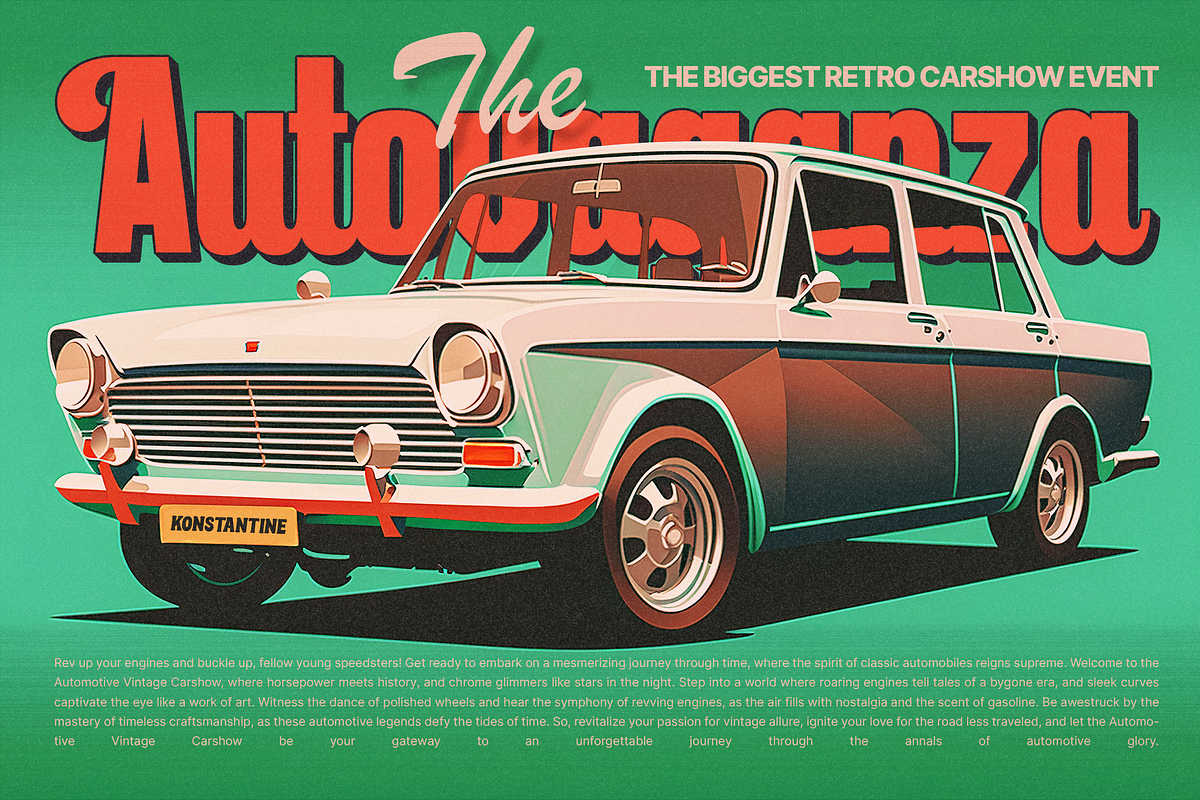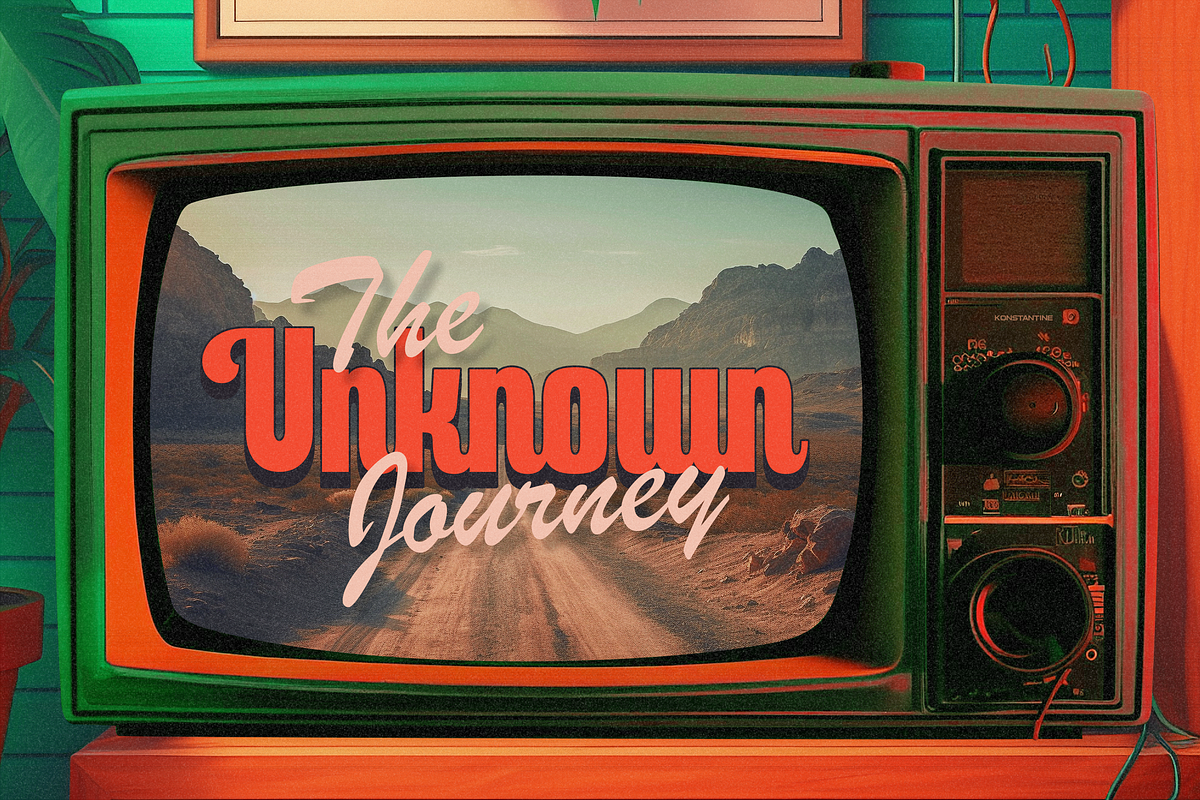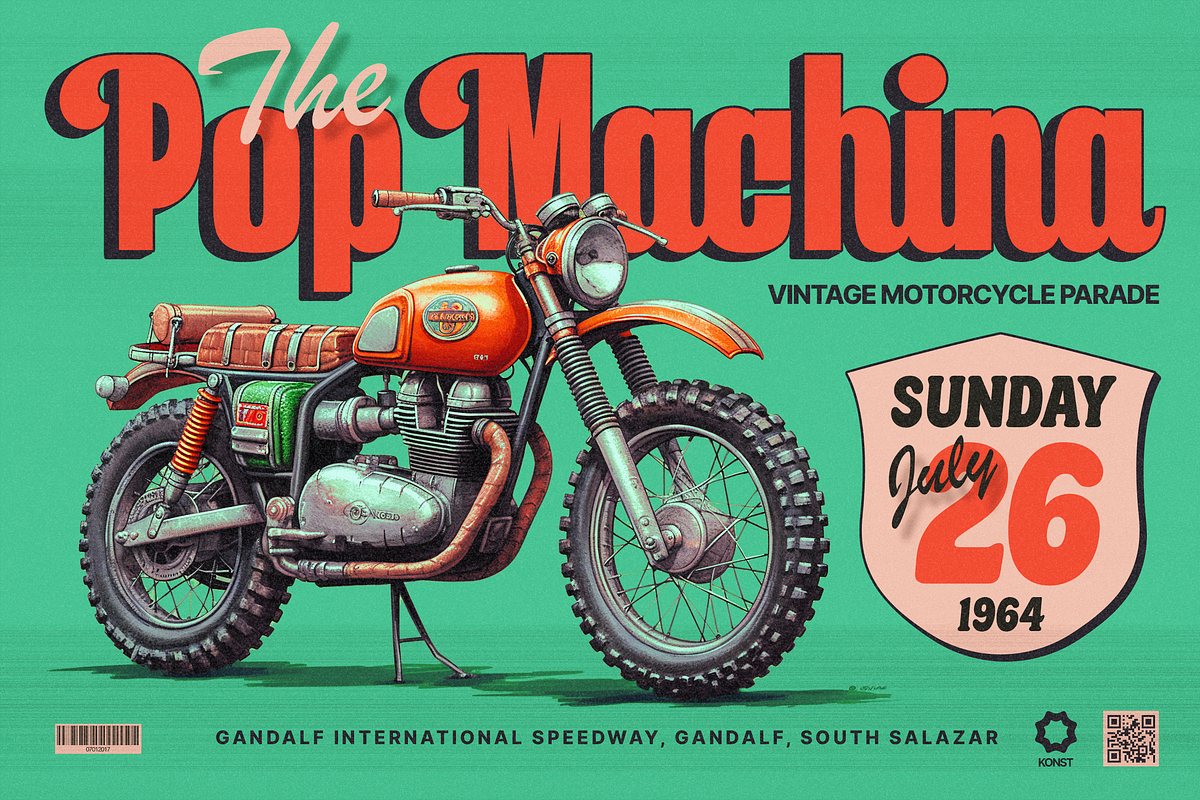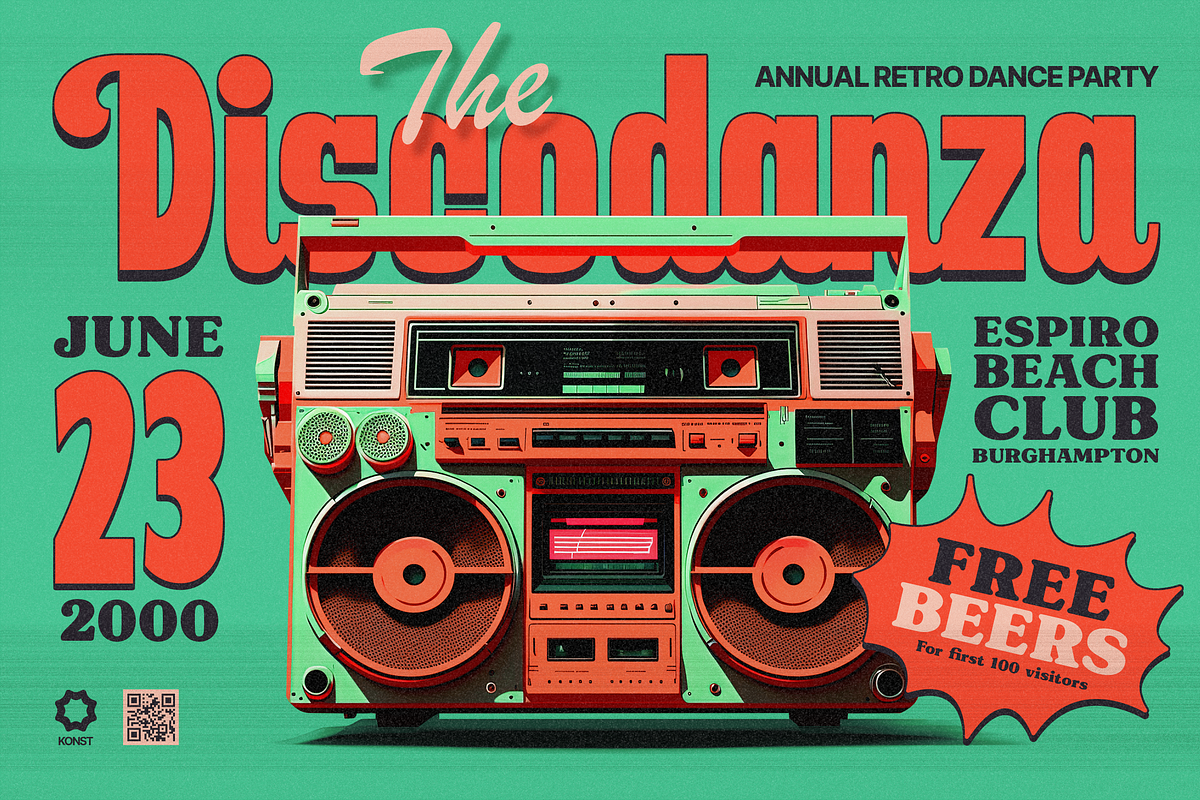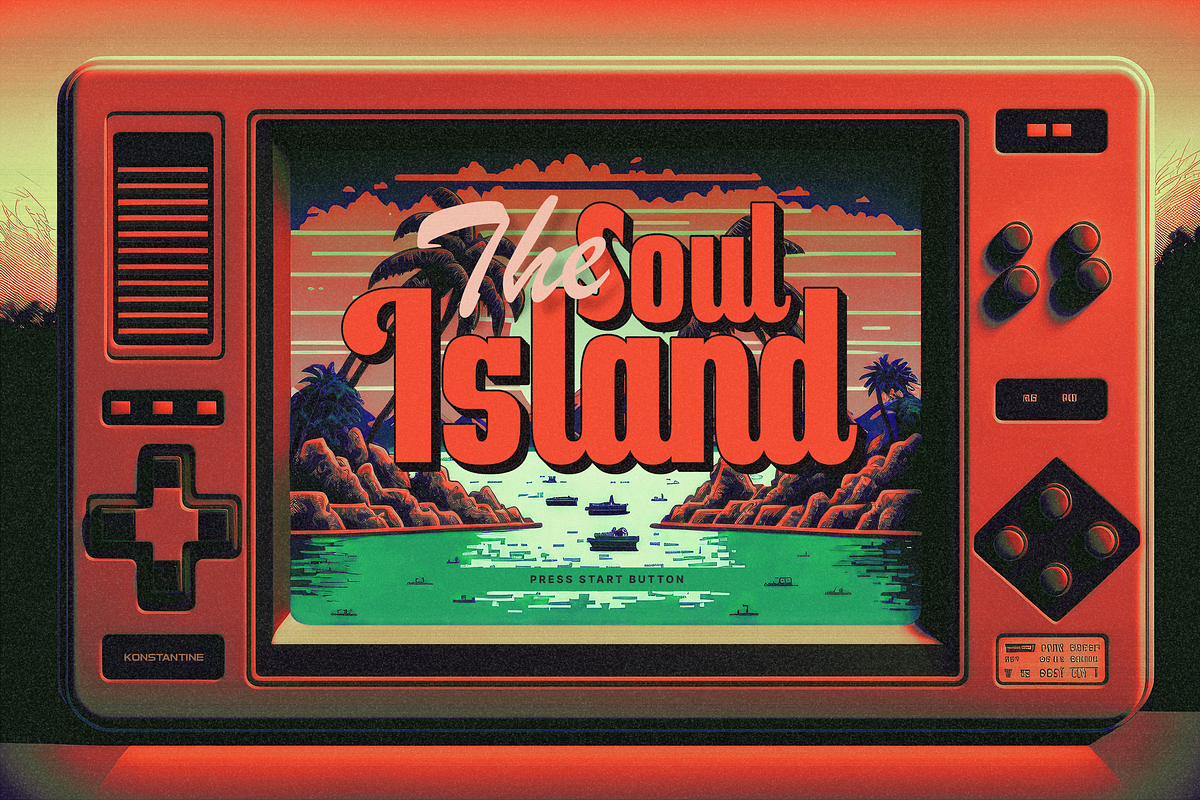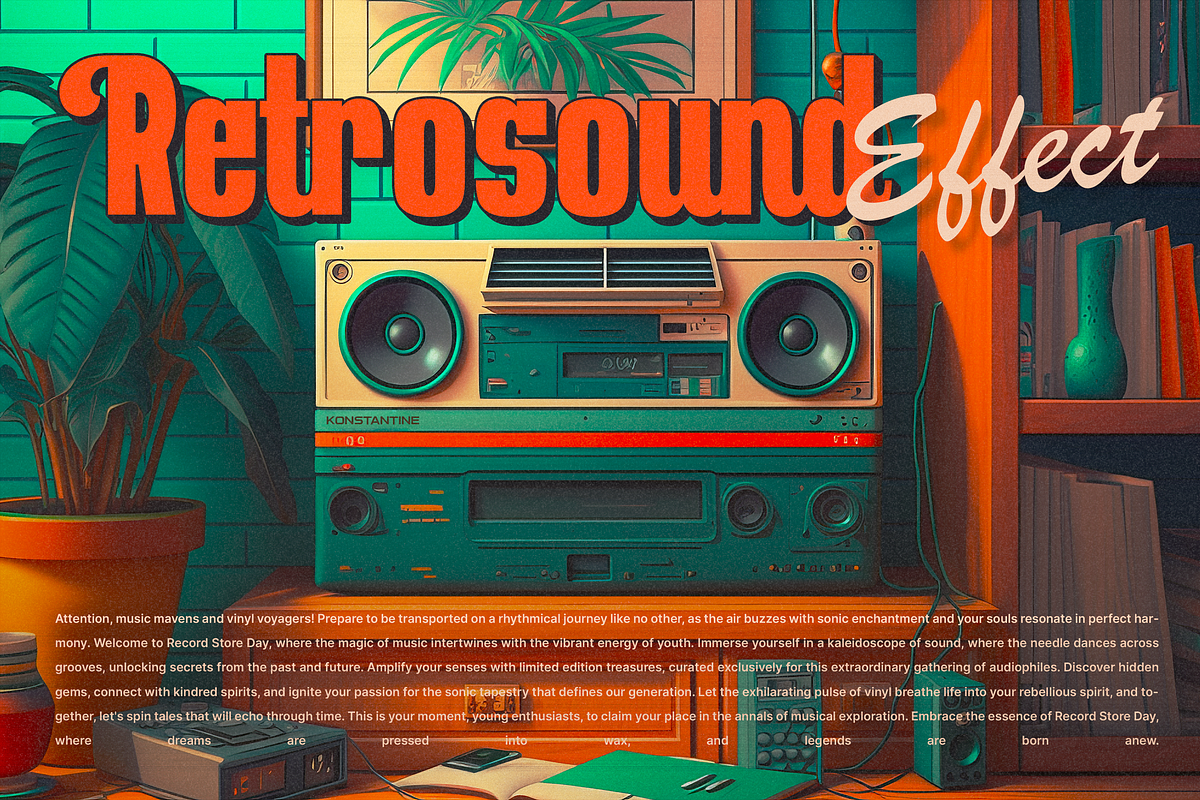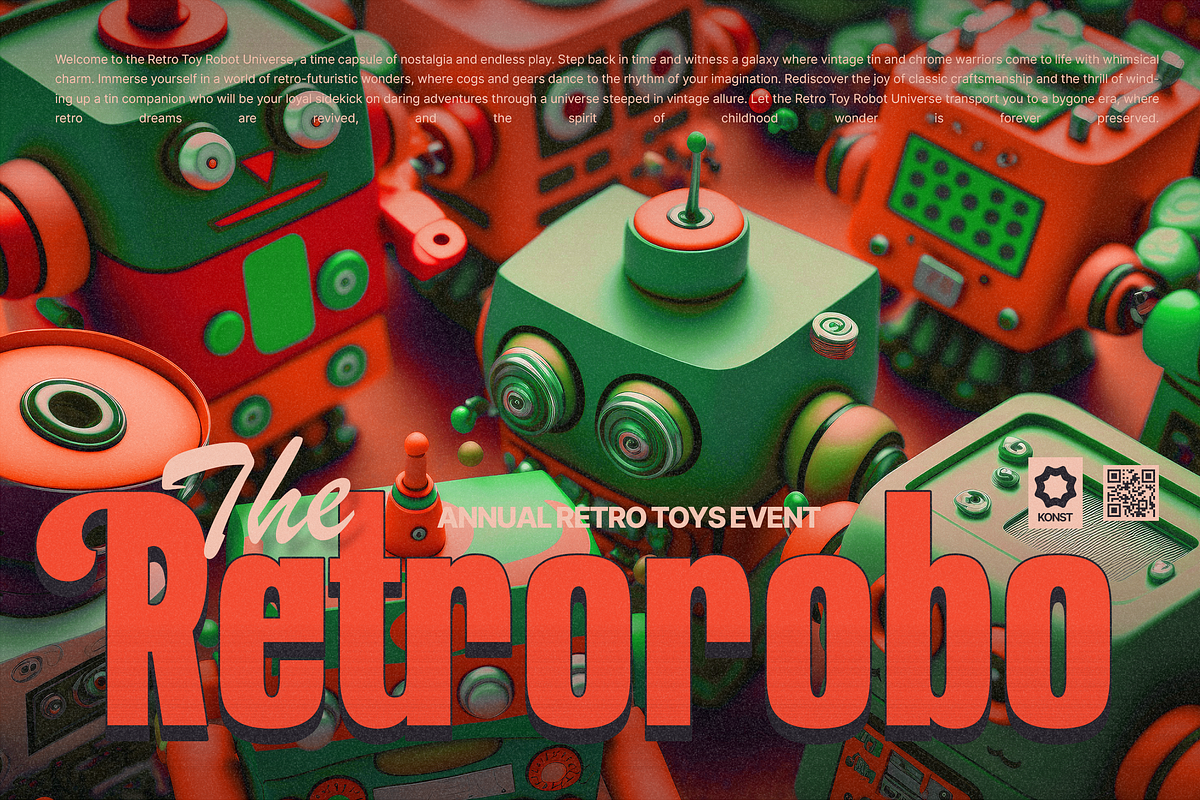
Quinbuilt - Retro Script Fonts
Are you ready to take your design projects to the next level? Say hello to Quinbuilt, the epitome of vintage charm blended seamlessly with modern design prowess. Elevate your creations with a touch of nostalgia that captures hearts and leaves a lasting impression.
Dive into a treasure trove of meticulously crafted fonts that transport you back in time while seamlessly fitting into today's design landscape. Quinbuilt doesn't just offer fonts; it delivers an experience that whispers stories of the past while sparking fresh waves of inspiration.
Whether you're revamping your brand identity, creating captivating marketing materials, or adding an extra flair to your personal projects, Quinbuilt has your back. With a diverse array of retro pop fonts at your fingertips, your creations will stand out in a sea of ordinary designs.
Hurry, dive into the world of Quinbuilt now, and embark on a journey that merges nostalgia with innovation. Your masterpiece awaits – let Quinbuilt be your guiding star!